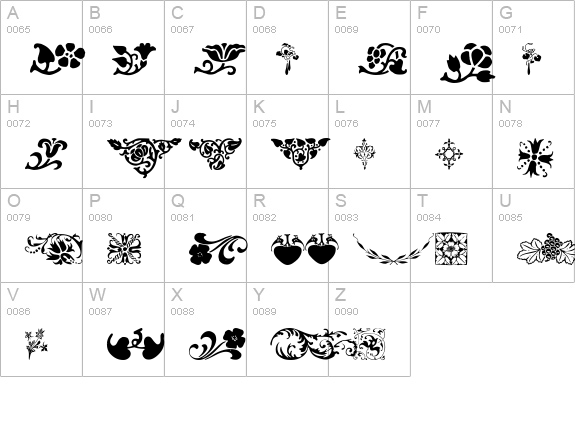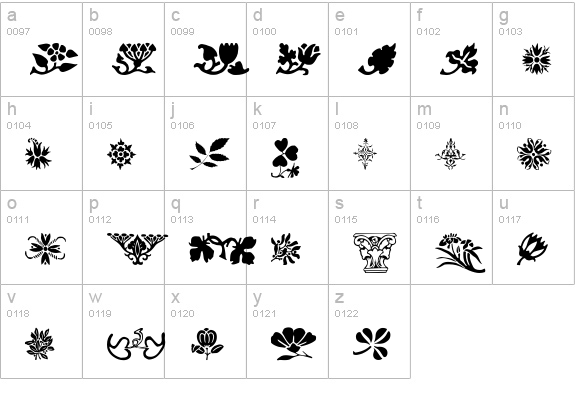
Printers Ornaments One Font Details
Printers Ornaments One font is a beautifully crafted typeface that adds a touch of elegance and sophistication to any design project. This ornate font features intricate details and decorative elements inspired by vintage printer's ornaments, making it perfect for creating stunning invitations, posters, and other creative designs. The best part is that Printers Ornaments One font is completely free to download at FontsMarket.com. Whether you're a professional designer or a hobbyist looking to add a unique flair to your creations, this font is sure to impress with its timeless charm and versatility. Download it today and elevate your designs with the exquisite beauty of Printers Ornaments One font.